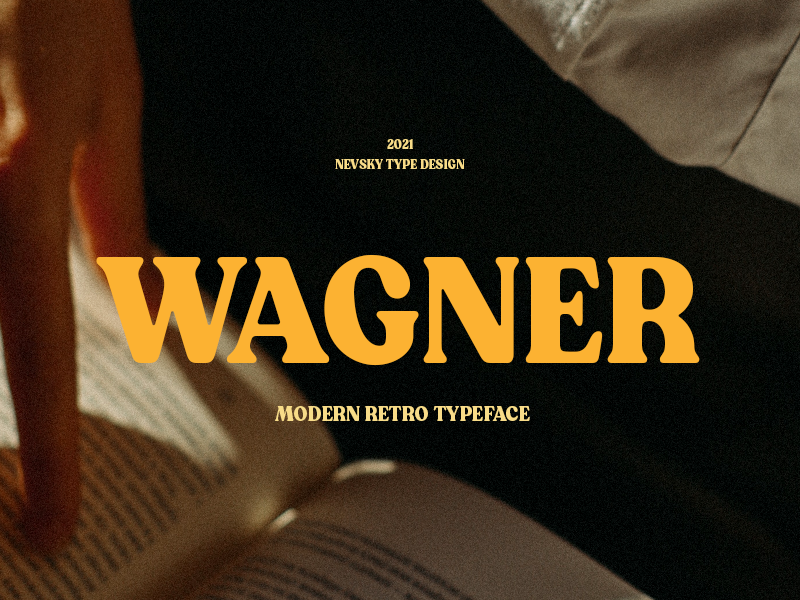
Preview and download NT Wagner Font. Created by Artem Nevsky in Basic Serif styles with Free for personal use license.
"NT Wagner" is a modern soft retro serif typeface will perfect for many project: invitations, postcard, poster, book, advertisements, websites, blog header, logo, branding, magazines, fashion, photography, etc.� This font needs to be in your collection and is perfect for your next design project. "NT Wagner" supports over 200 Latin-based languages. This font free for PERSONAL USE. Commercial license: https://crella.net/product/nt-wagner/ If you need more detailed information you can contact me at: nevsky.type@gmail.com https://www.behance.net/artemnevsky |